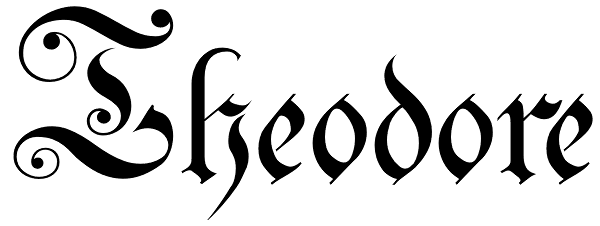
Theodore
Theodore is a decorated font based on 18th century engraved alphabets. There are 7 faces covering all needs from the simples(ish) to highly decorated an expert set is also included.